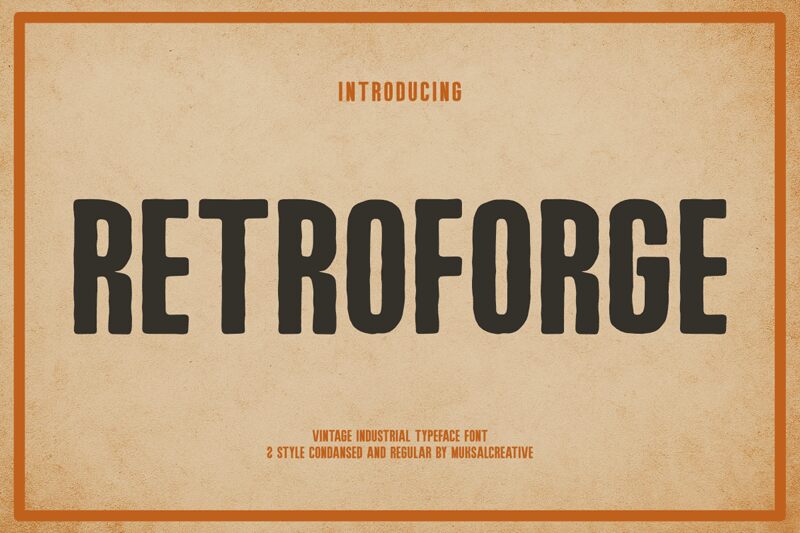
Retroforge font by Muksal Creative carries a unique, textured grunge aesthetic that reflects its industrial character, reminiscent of old metal letterpress type. Free for personal use, its solid and impactful appearance helps it take center stage on every design it’s used in, creating a focal point that draws viewers in immediately. Retroforge follows a utilitarian, classic style that looks like it has been naturally deroded over time. Its retro aesthetic and sturdy, robust appearance offer a vintage feel that can be applied in many ways that suit your project’s style.
Incorporate this free font in digital designs on social media posts, website headers, blog titles, branding, and packaging. Printed projects such as posters, advertisements, and brochures are other domains in which the typeface shines, as well as other personal and commercial designs. Retroforge comes with all characters, numbers, and symbols.